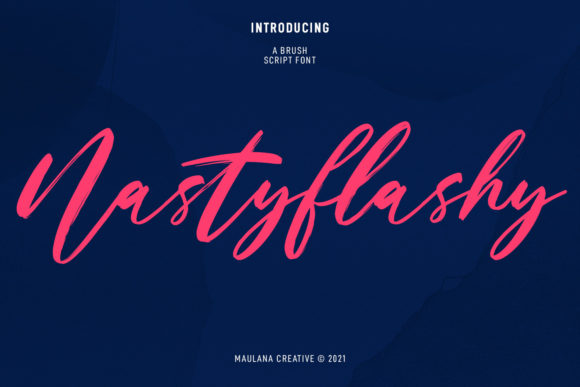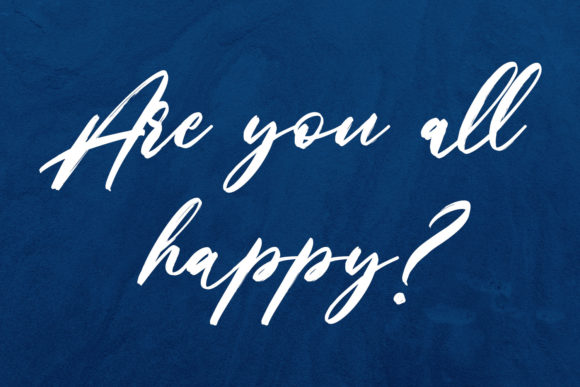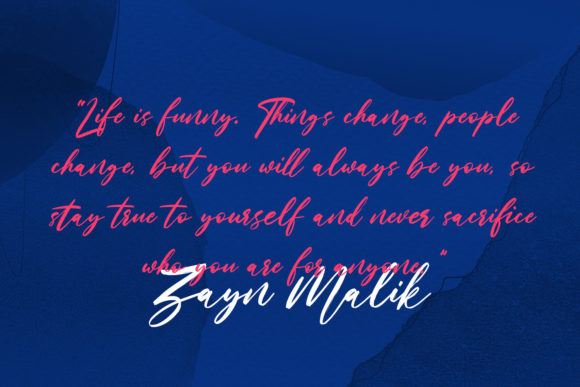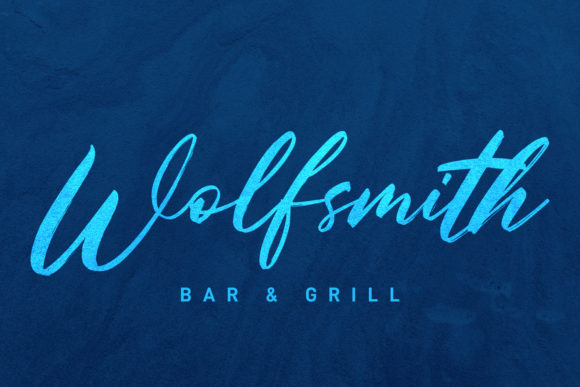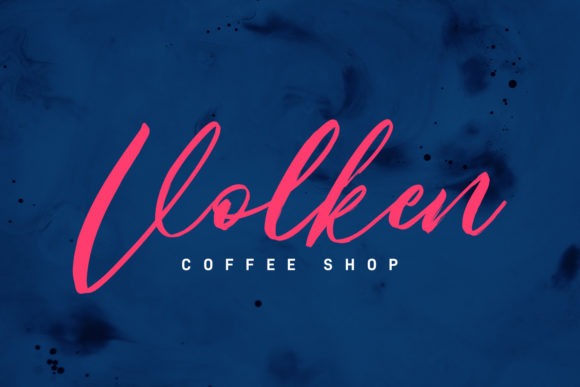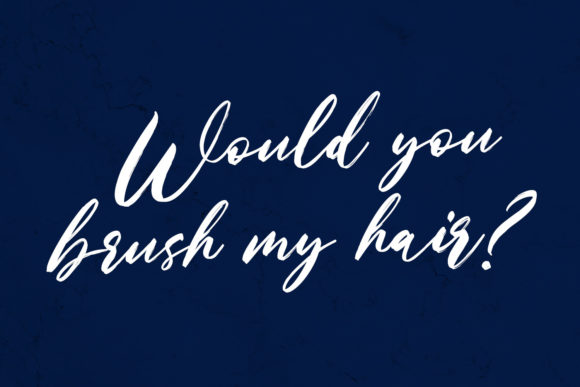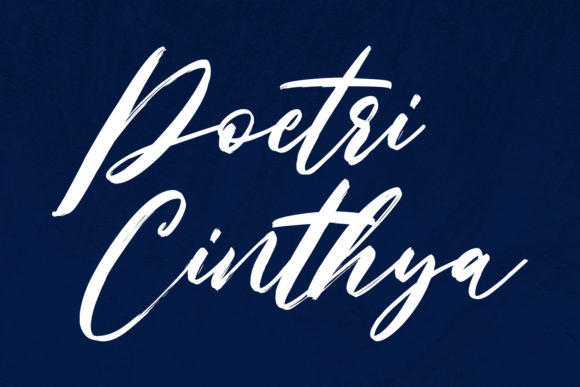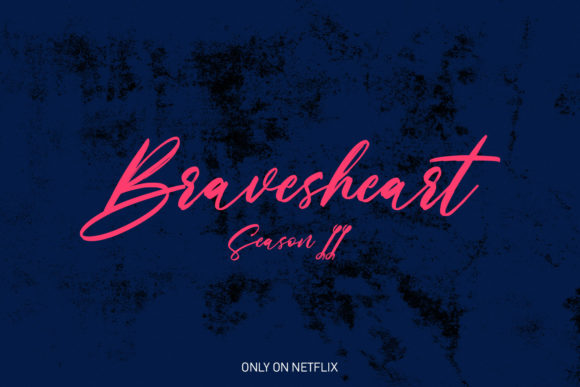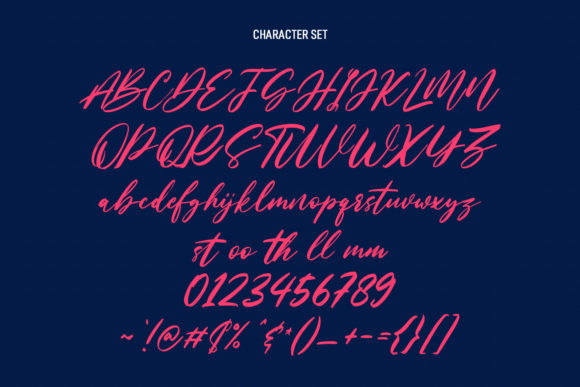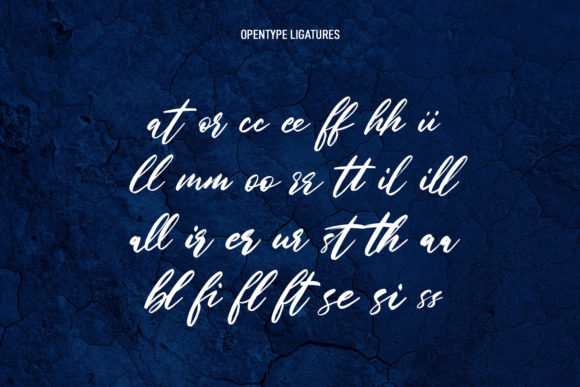
Nastyflashy Script Font
About Nastyflashy Script Font
Nastyflashy Script is a delicate, elegant and flowing handwritten font. It has beautiful and well balanced characters and as a result, it matches a wide pool of designs. Add it to your most creative ideas and notice how it makes them come alive!